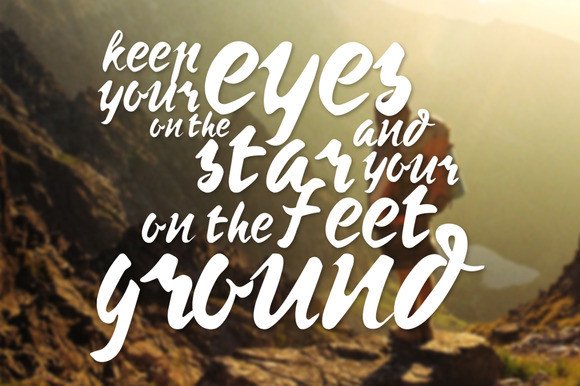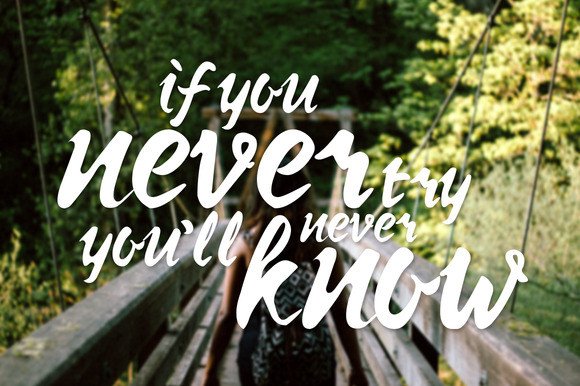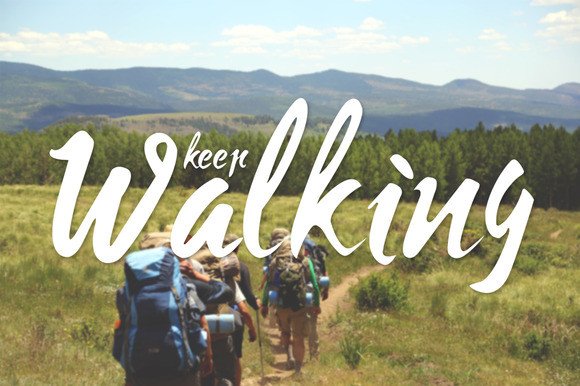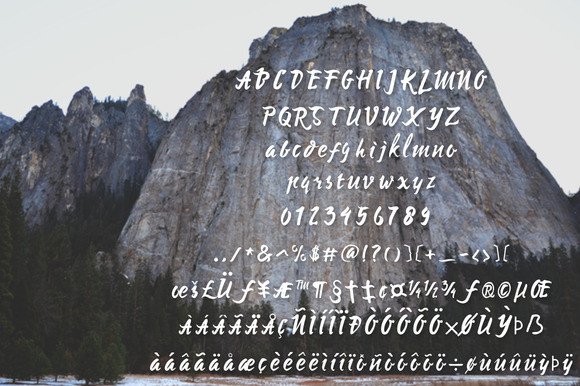
Introduction to Mysera Font
Mysera is a new handmade typeface.
Designed with a brush pen and is great for posters, cover designs, traveling, quotes, headlines, logos, t-shirts and much more .